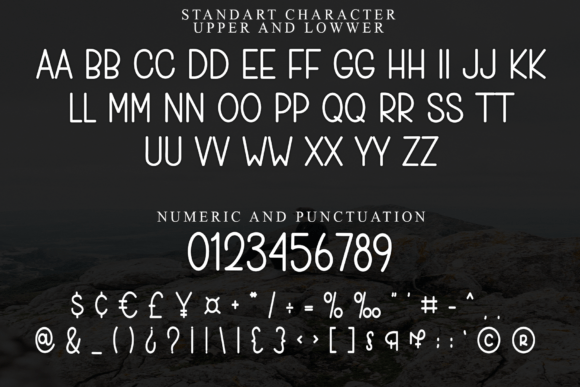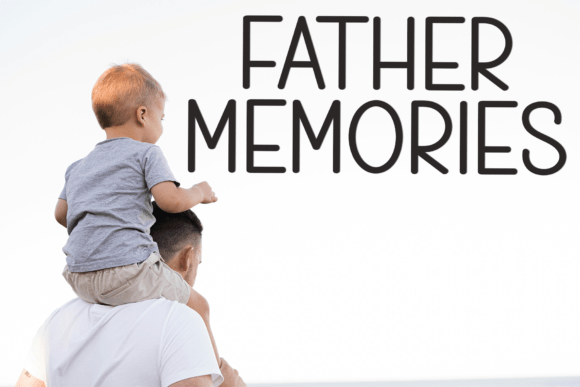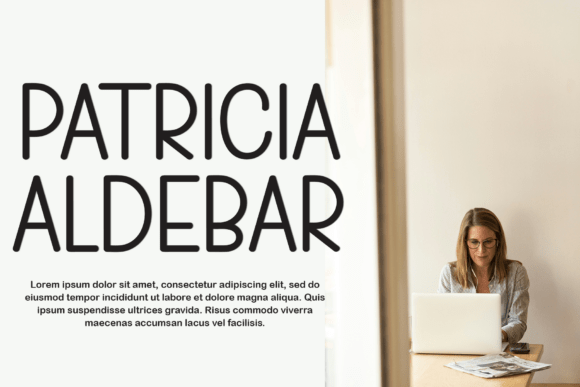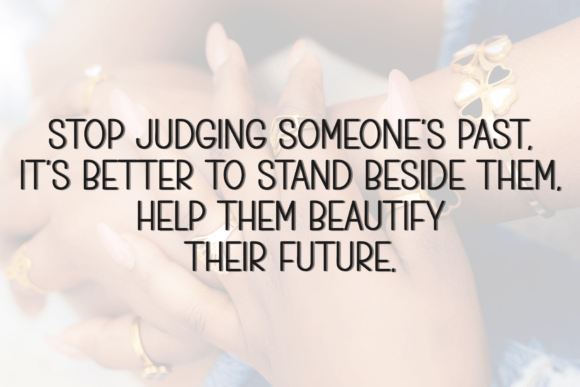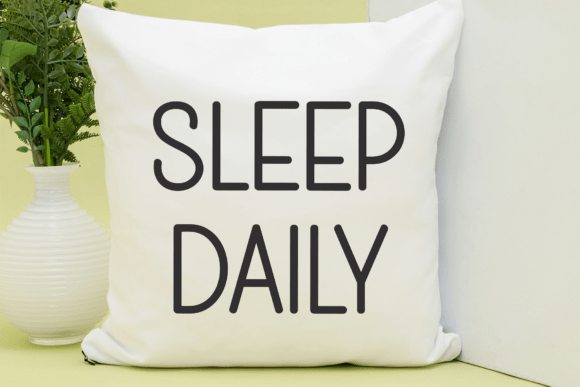
The Sweet Spot: Discovering the Chocomalt Font
I’ll never forget the moment I stumbled upon the Chocomalt font. I was working on a project for a client who wanted a unique, eye-catching design that would make their brand stand out. As I scrolled through font after font, nothing seemed quite right – until I saw Chocomalt. Its soft, distinctive strokes immediately caught my attention, and I knew I had found the perfect fit.
A First Impression: What I Love About Chocomalt
Chocomalt is more than just a font – it’s an experience. Here are a few things that I absolutely love about it:
- ✨ Unique and eye-catching design: Chocomalt’s soft, rounded strokes give it a special character that sets it apart from other fonts.
- ✅ Versatile and meaningful: With a wide range of characters, Chocomalt is perfect for various design projects, crafts, and creative works.
- 🌟 Natural and effortless feel: This font style is ideal for designs that require a friendly, approachable tone.
The Honest Review: A Few Quirks to Consider
While Chocomalt is an amazing font, there are a few quirks to keep in mind:
- 🤔 Limited use in formal designs: Chocomalt’s playful nature makes it less suitable for formal or professional designs that require a more serious tone.
- ⚠️ Some characters may require adjustments: Depending on the design, some characters may require manual adjustments to ensure proper spacing and alignment.
While the true story behind Chocomalt’s creation is unknown, it’s easy to imagine that the designer was inspired by the whimsical world of childhood treats. Perhaps they wanted to create a font that would evoke feelings of warmth and comfort – much like a rich, chocolatey malt.
| What type of designs is Chocomalt best suited for? | Chocomalt is perfect for creative projects, crafts, and designs that require a friendly, approachable tone. |